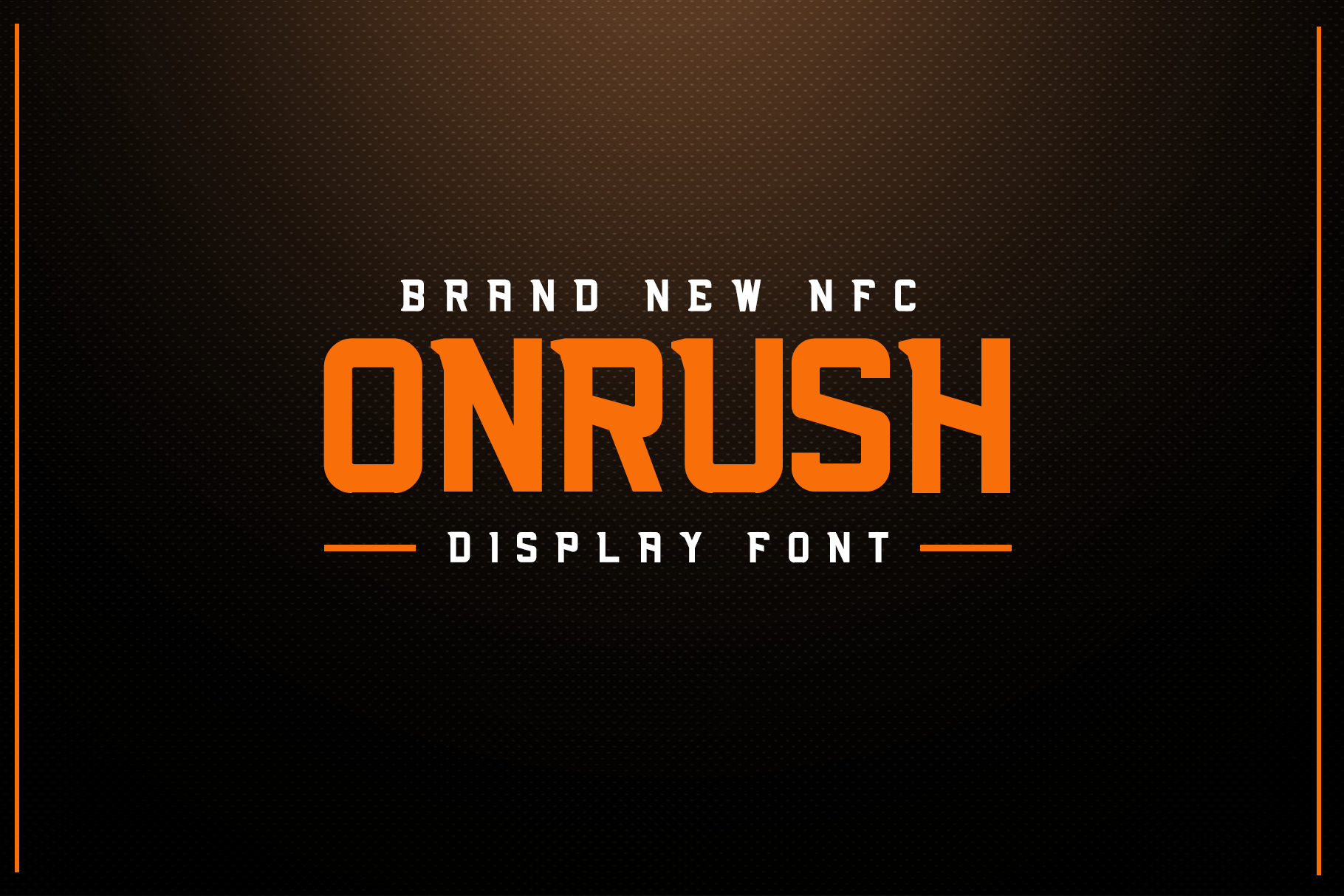
NFC ONRUSH DISPLAY FONT
NFC Onrush Exclusive Display font, is our new item that suitable for your team logo, or community logo.
Great for Logo, Sticker, Jersey, Invitation Card, Brochure, etc.